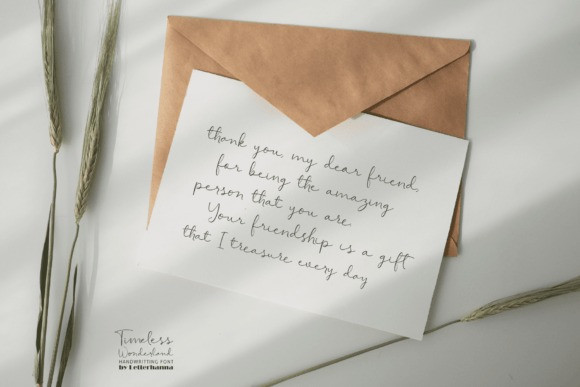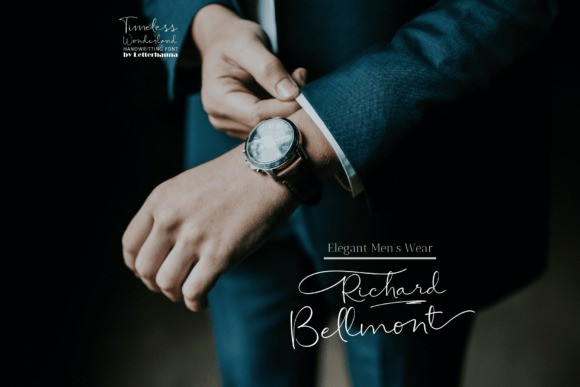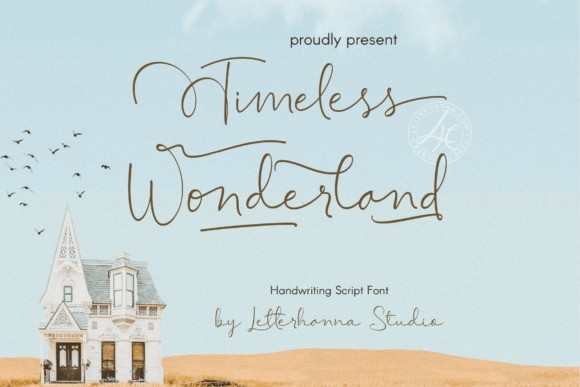
Timeless Wonderland Handwritten Font
Timeless Wonderland Handwritten Font is a captivating calligraphic handwritten script font that weaves a story of timeless beauty and enchantment. Each stroke of this font is a testament to the artistry of calligraphy, making it the perfect choice for creative projects that seek to blend elegance with an enduring sense of wonder.